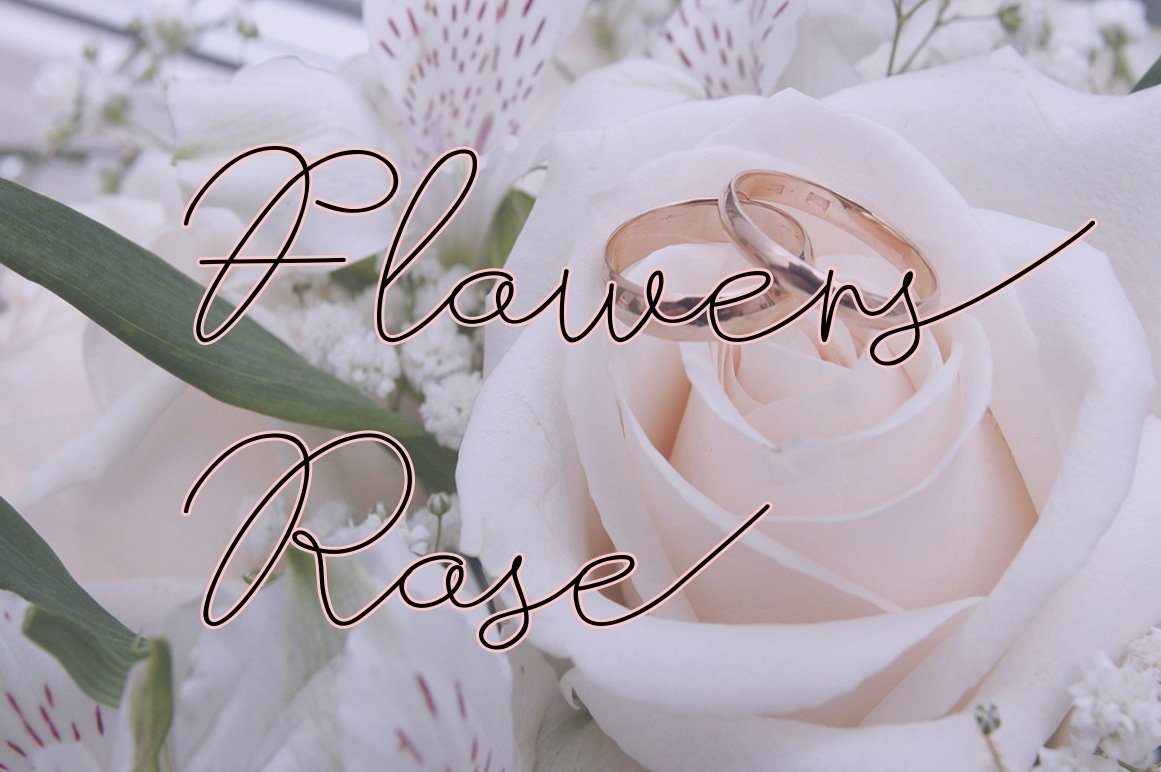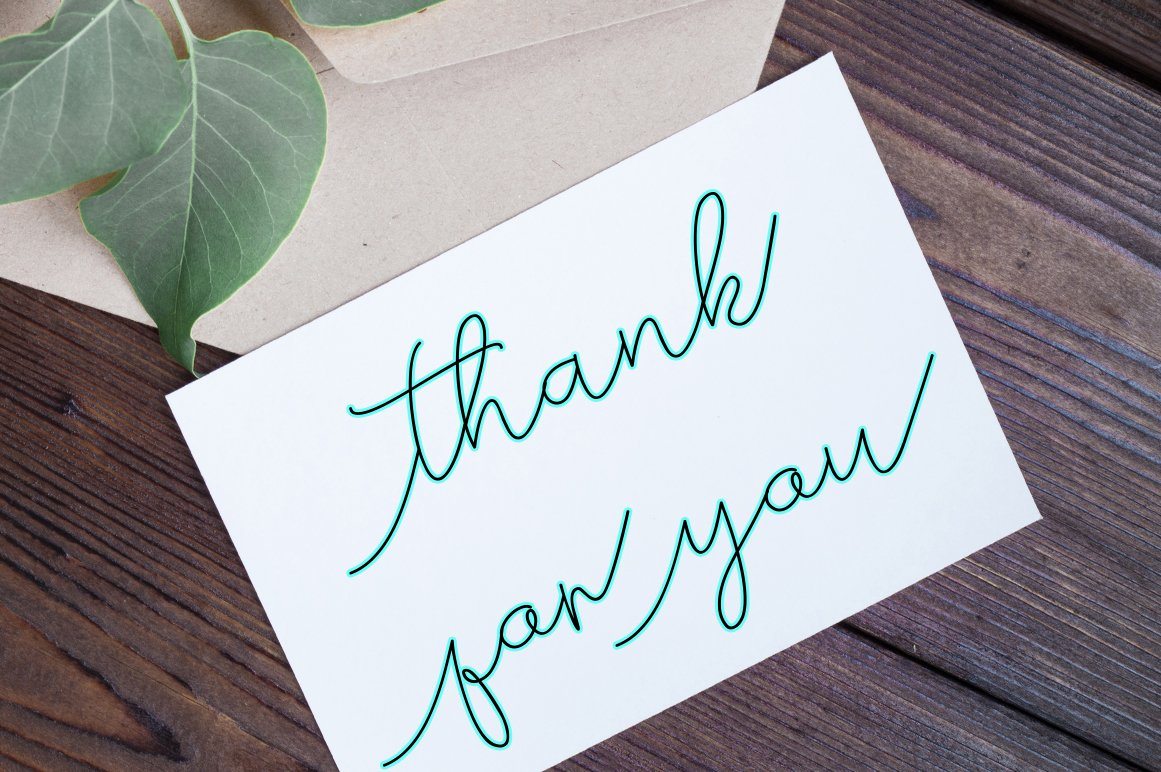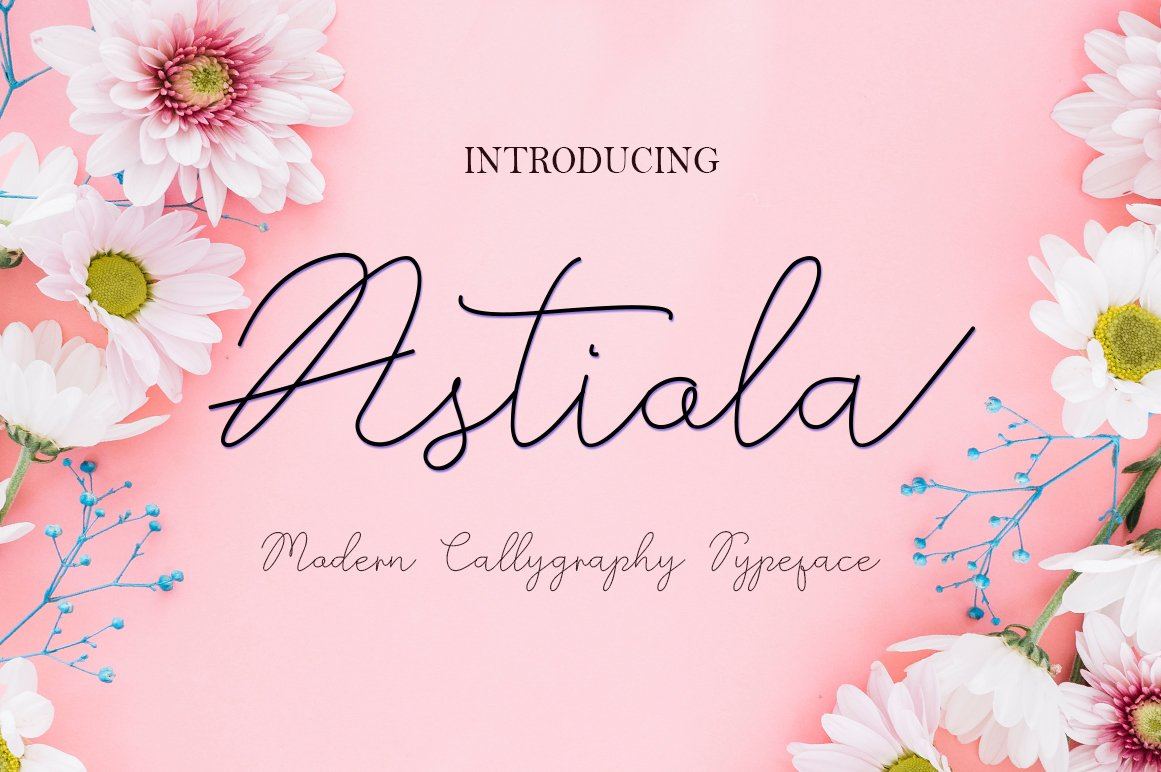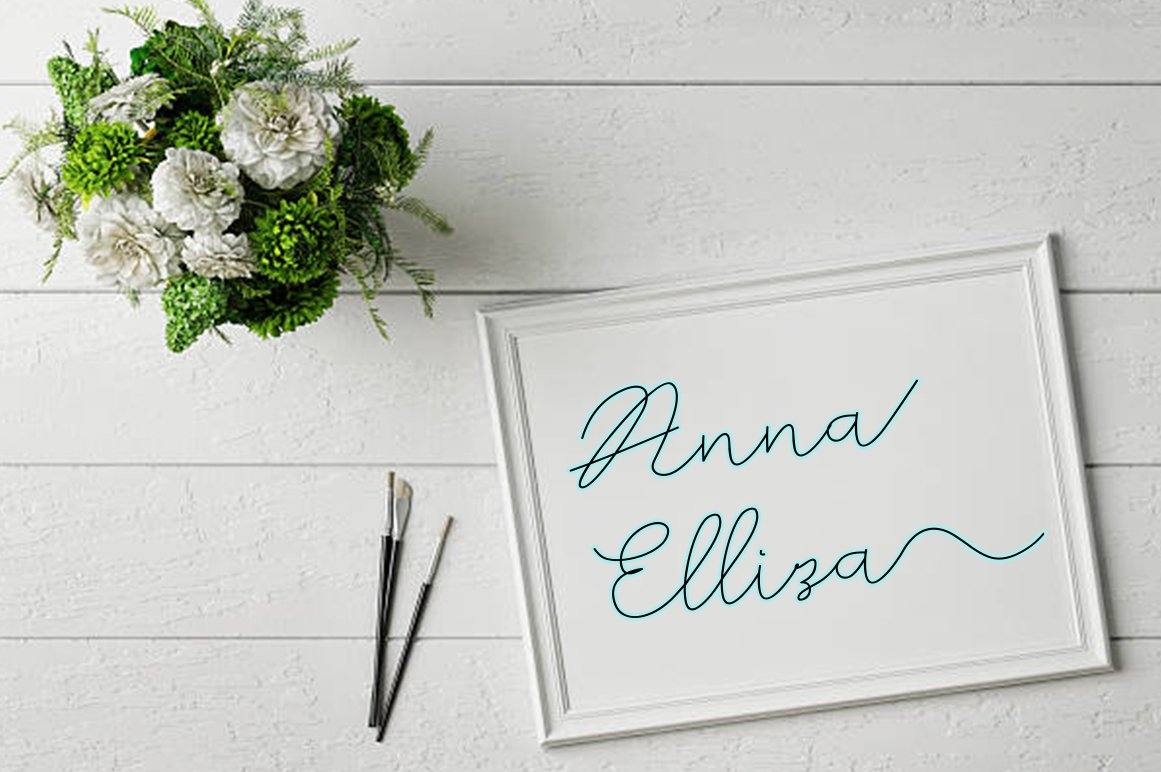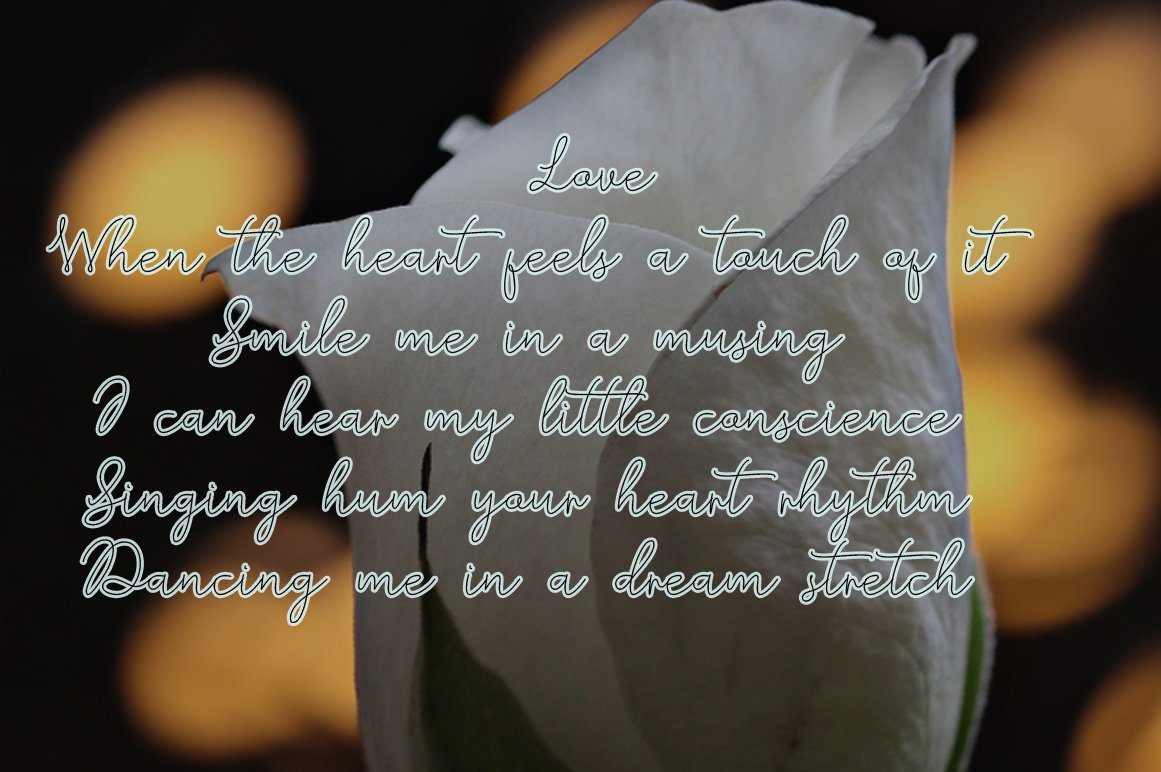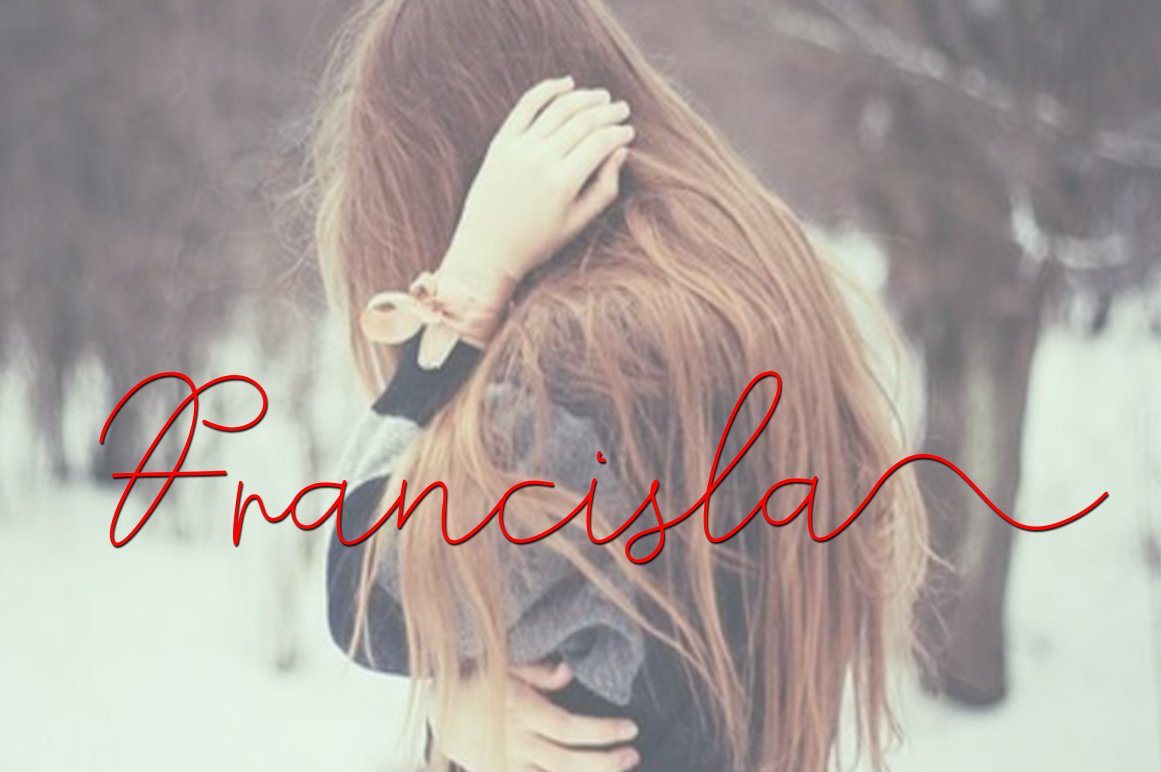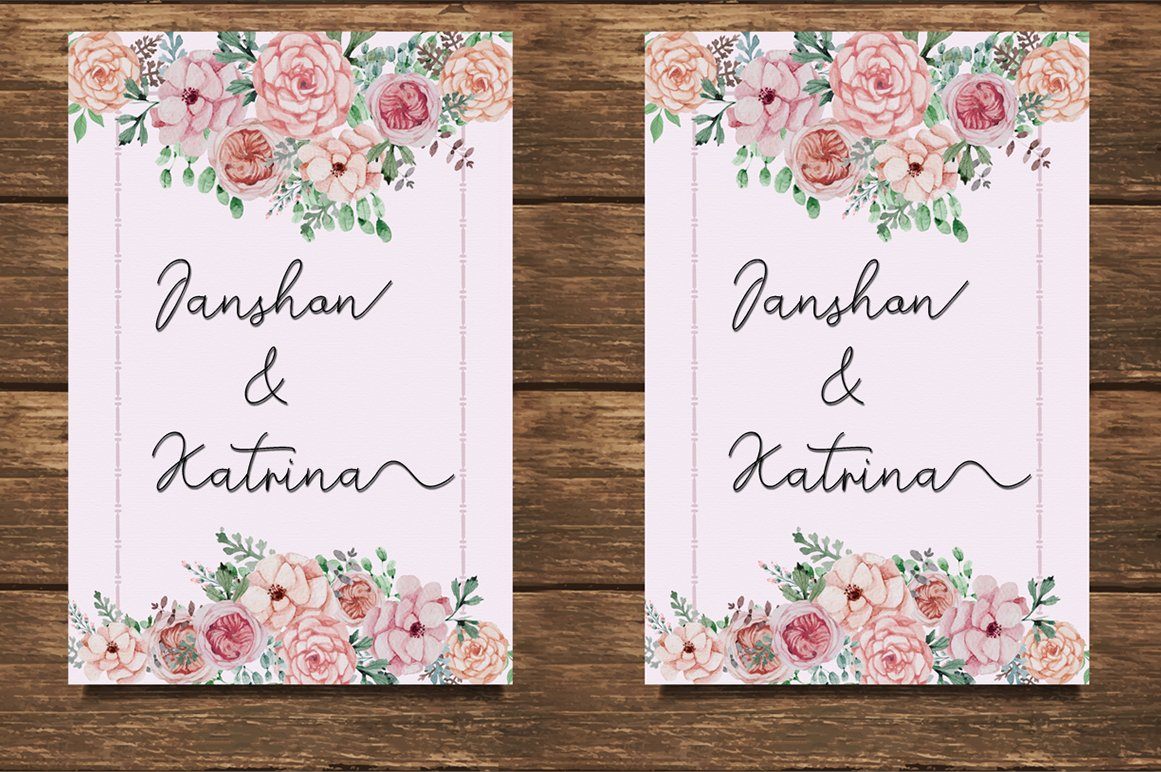
Astiola
About Astiola
I Want To Introduce New Fonts Astiola Script New fresh & modern style with handmade calligraphy, decorative characters and dancing lineage! So wonderful are invitations like greeting cards, branding material, business cards, quotes, posters, and more !! Astiola Script The comes with 337 glyphs. Alternate characters are divided into several Open Type features such as Swash, Stylistic Sets, Stylistic Alternate, Contextual Alternate. Open Type features are accessible by using Open Type savvy programs such as Adobe Illustrator, Adobe InDesign, Adobe Photoshop Corel Draw X versions, and Microsoft Word. And this font has code PUA unicode (font with special code). So that all alternative characters can be easily accessed by craftsmen or designers. Astiola Script Uppercase & lowercase International signature & symbol Punctuation Support & PUA number Unicode Style Style Alternative Style Style Range 1-4 Contextual Character Variations. ZIP files include the following: Astiola.OTF Script Astiola.TTF Script If you do not have programs that support OpenType features like Adobe Illustrator and CorelDraw X Versions, you can access all alternative flying machines using Font Book (Mac) or Character Map (Windows) Astiola Script New fresh & modern style with handmade calligraphy, decorative characters and dancing lineage! So wonderful are invitations like greeting cards, branding material, business cards, quotes, posters, and more !! Astiola Script The comes with 337 glyphs. Alternate characters are divided into several Open Type features such as Swash, Stylistic Sets, Stylistic Alternate, Contextual Alternate. Open Type features are accessible by using Open Type savvy programs such as Adobe Illustrator, Adobe InDesign, Adobe Photoshop Corel Draw X versions, and Microsoft Word. And this font has code PUA unicode (font with special code). So that all alternative characters can be easily accessed by craftsmen or designers. Astiola Script Uppercase & lowercase International signature & symbol Punctuation Support & PUA number Unicode Style Style Alternative Style Style Range 1-4 Contextual Character Variations. ZIP files include the following: Astiola.OTF Script Astiola.TTF Script If you do not have programs that support OpenType features like Adobe Illustrator and CorelDraw X Versions, you can access all alternative flying machines using Font Book (Mac) or Character Map (Windows)